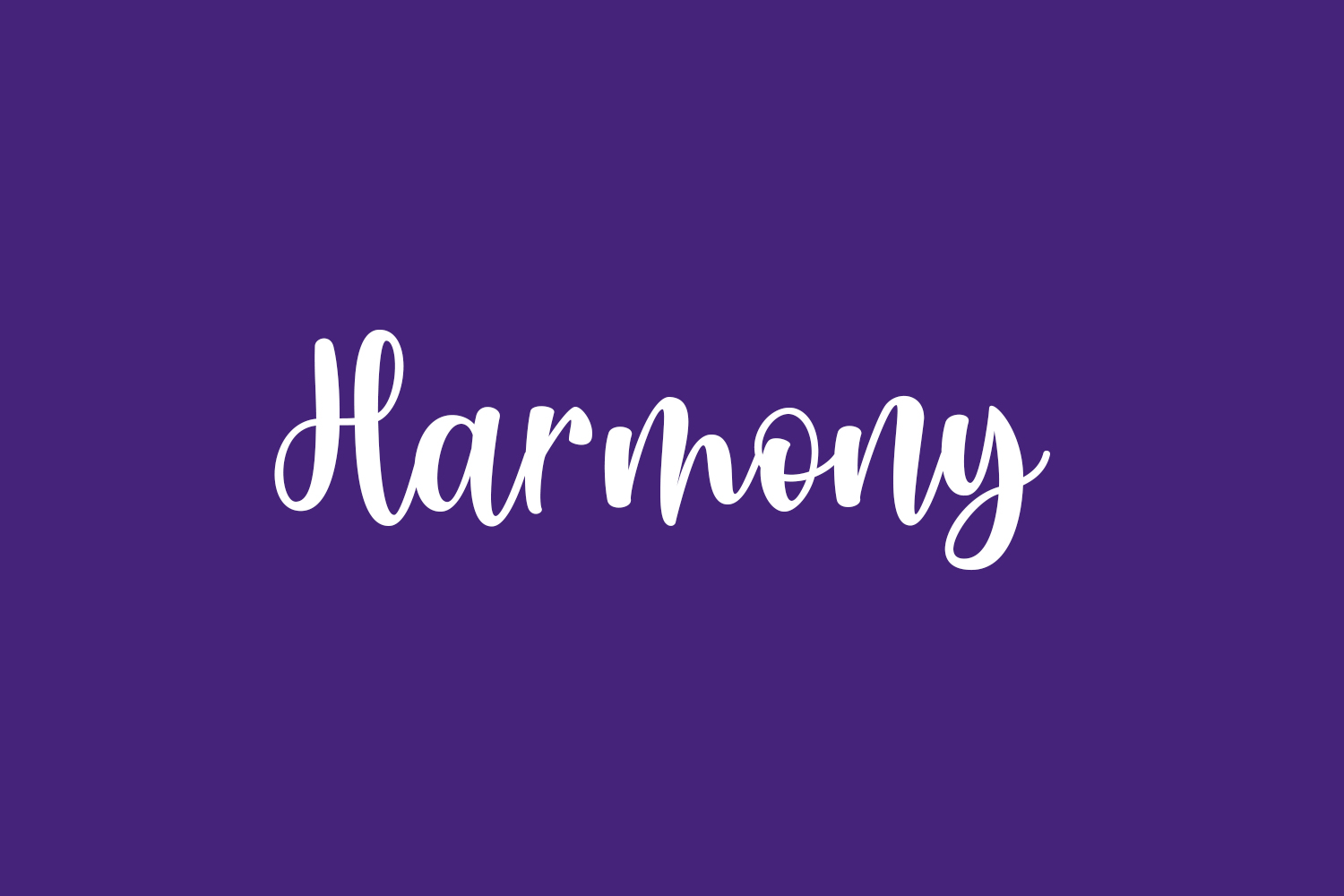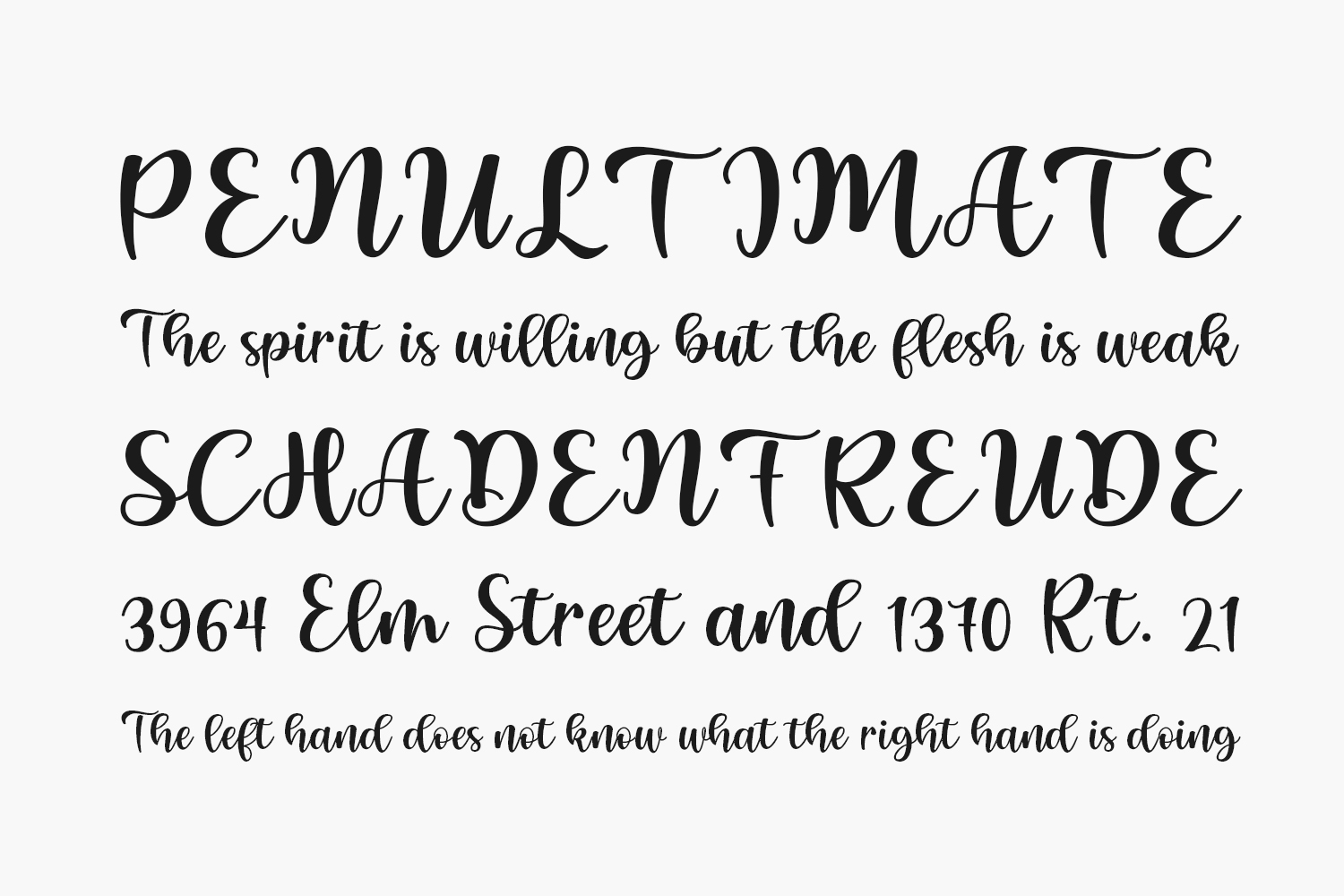
Harmony Free Font Family is an exquisite handwritten font, that exudes chic elegance and meticulous attention to detail. Embrace its eternal appeal as you design eye-catching logos, branding elements, and inspiring quotes. Each letter boasts a perfect balance of neatness and charm, infusing your creations with a captivating life of their own. Harmony Free Font Family is free for personal use only. Please purchase the full version for commercial use.
Harmony Script The quick brown fox jumps over the lazy dog
Harmony Extras The quick brown fox jumps over the lazy dog